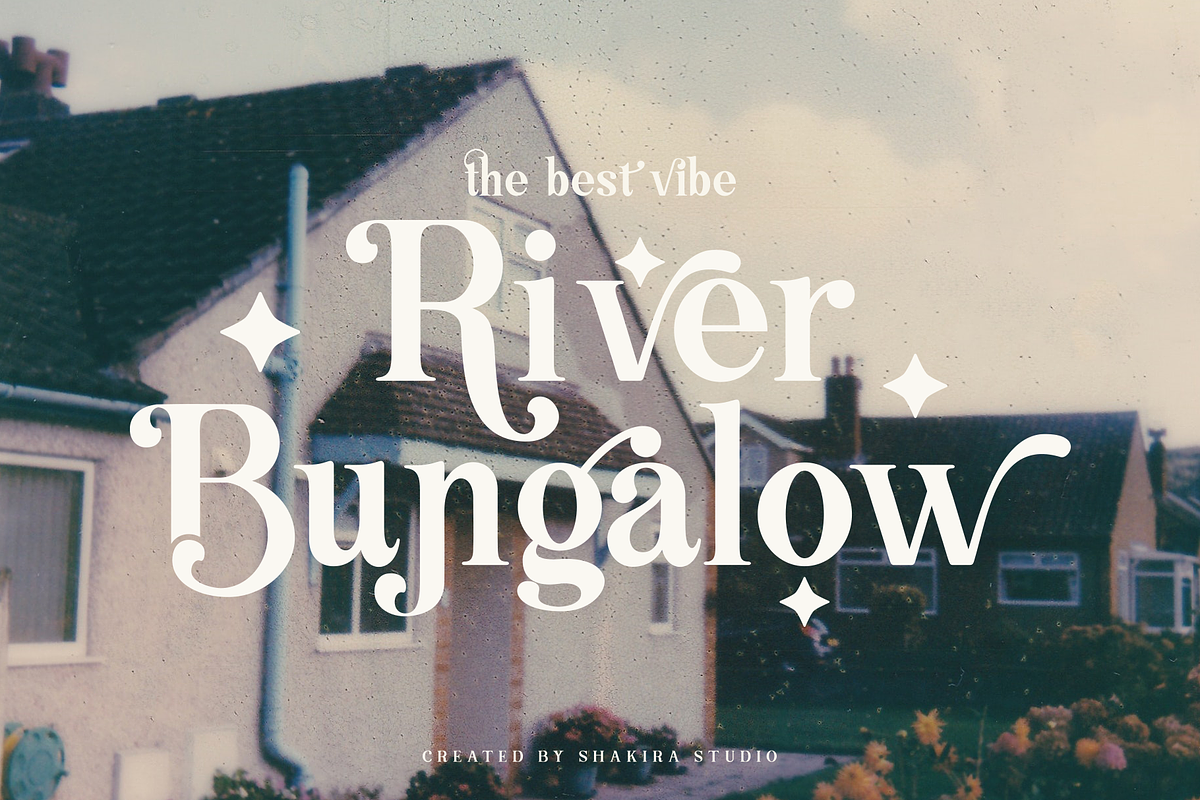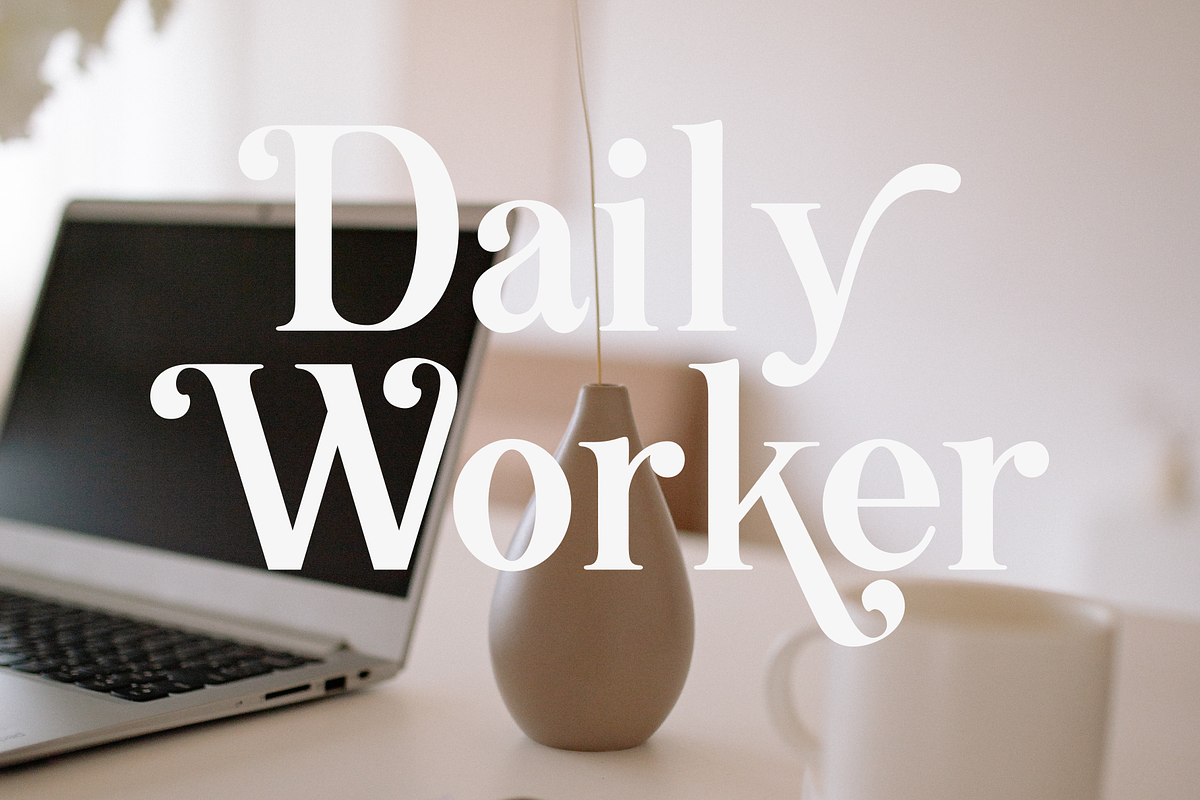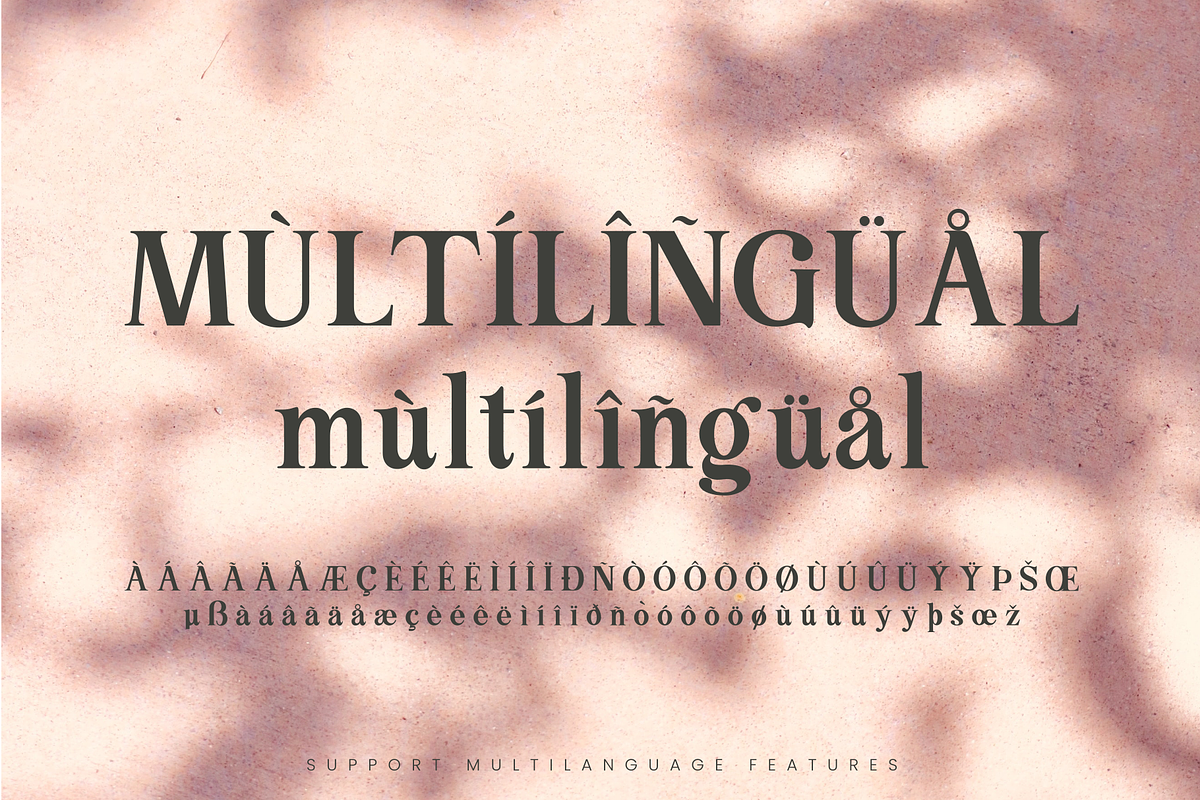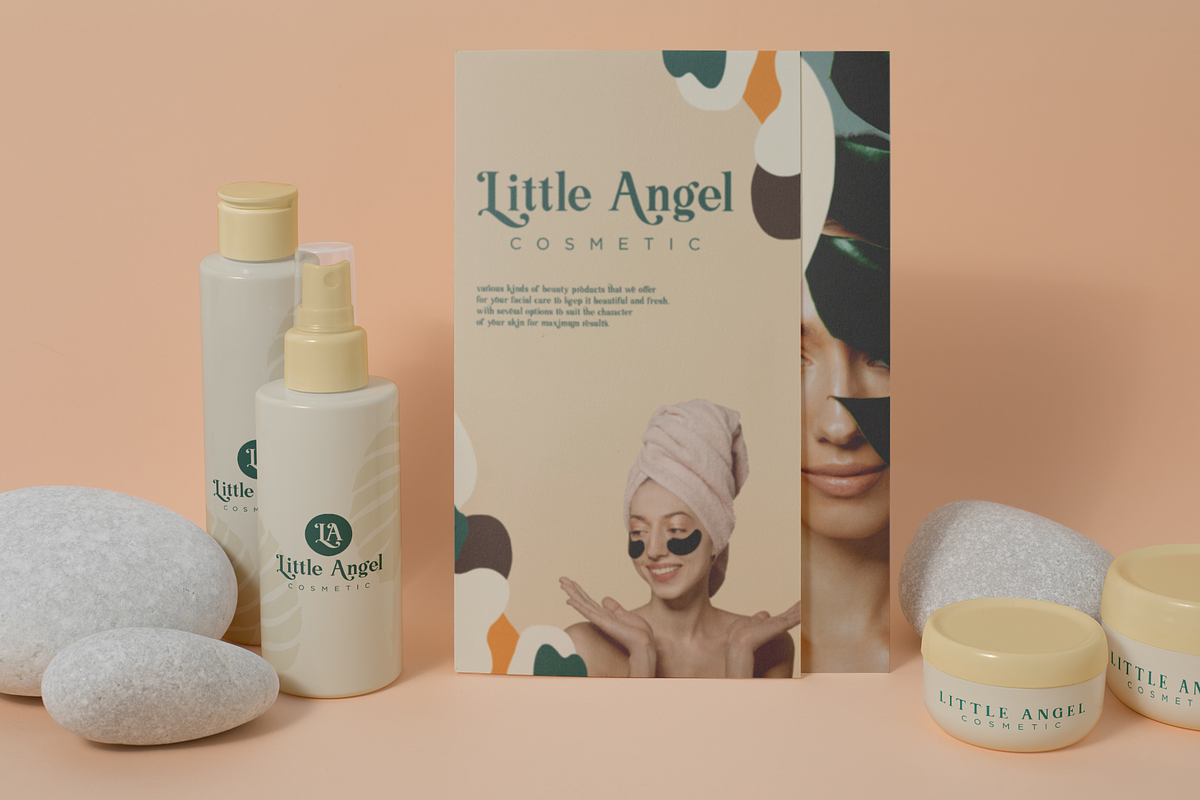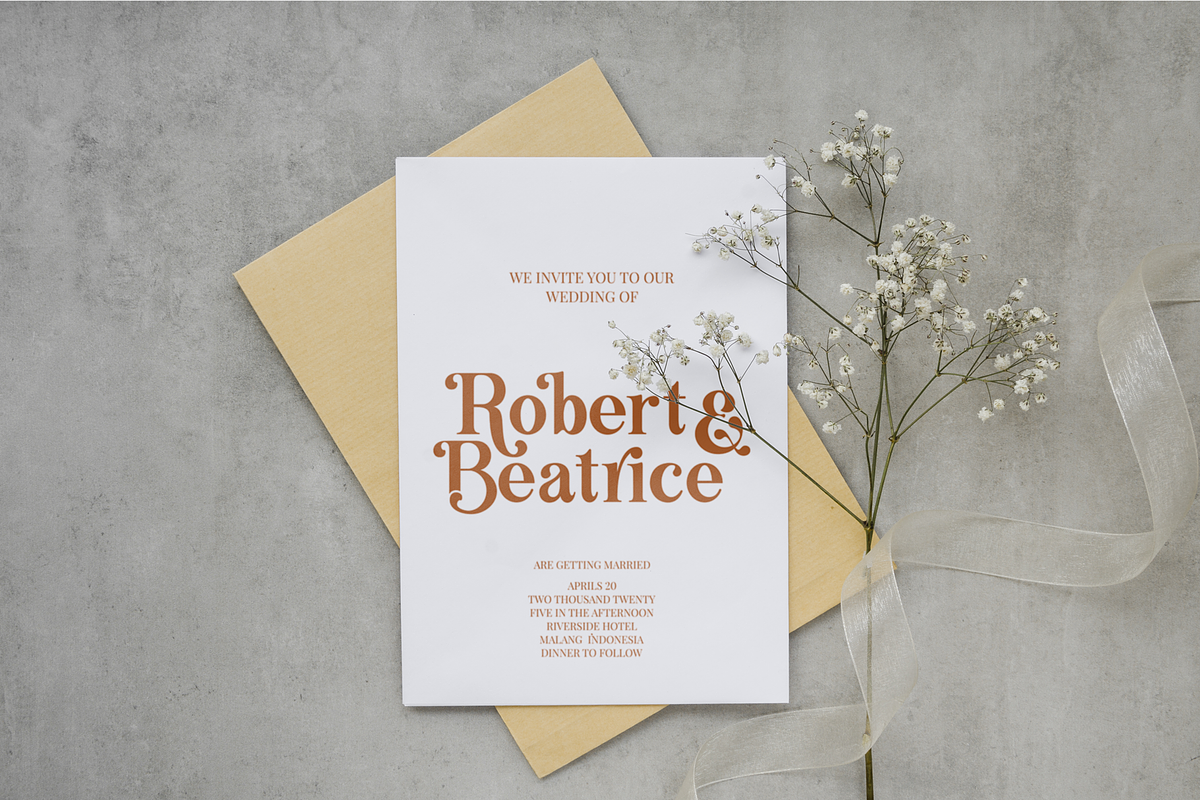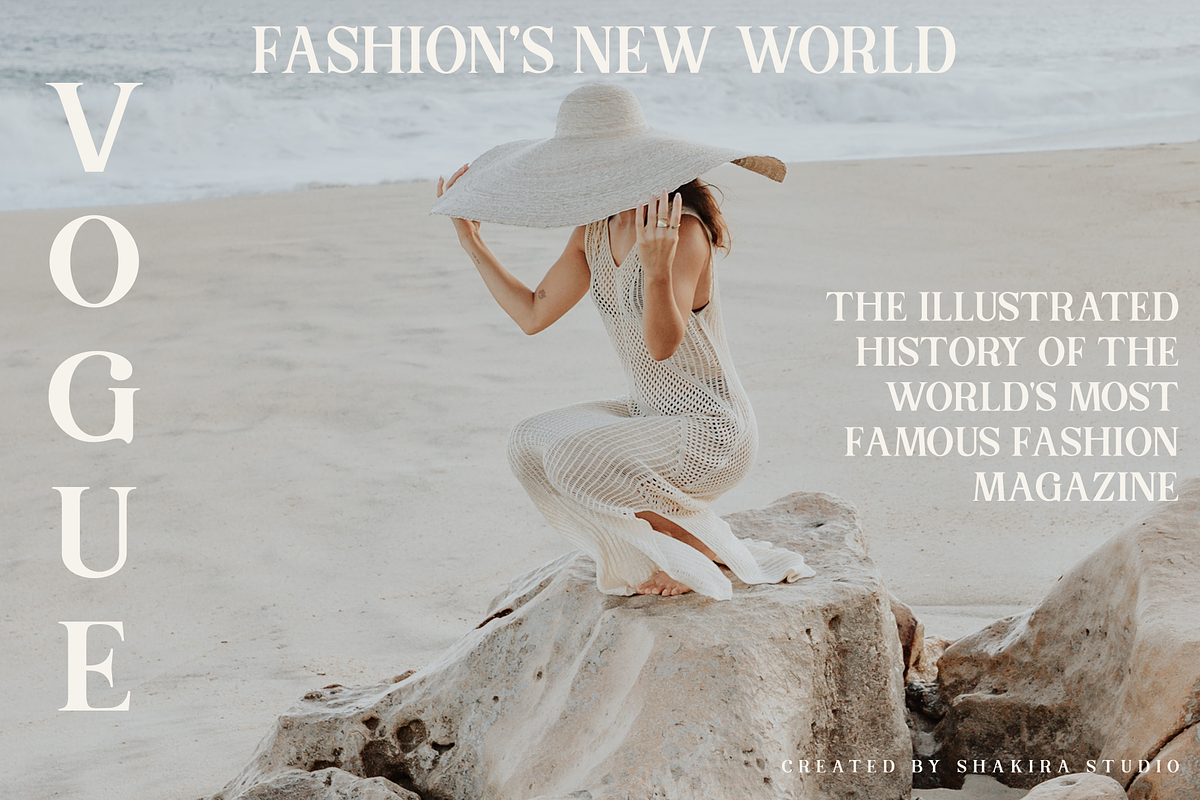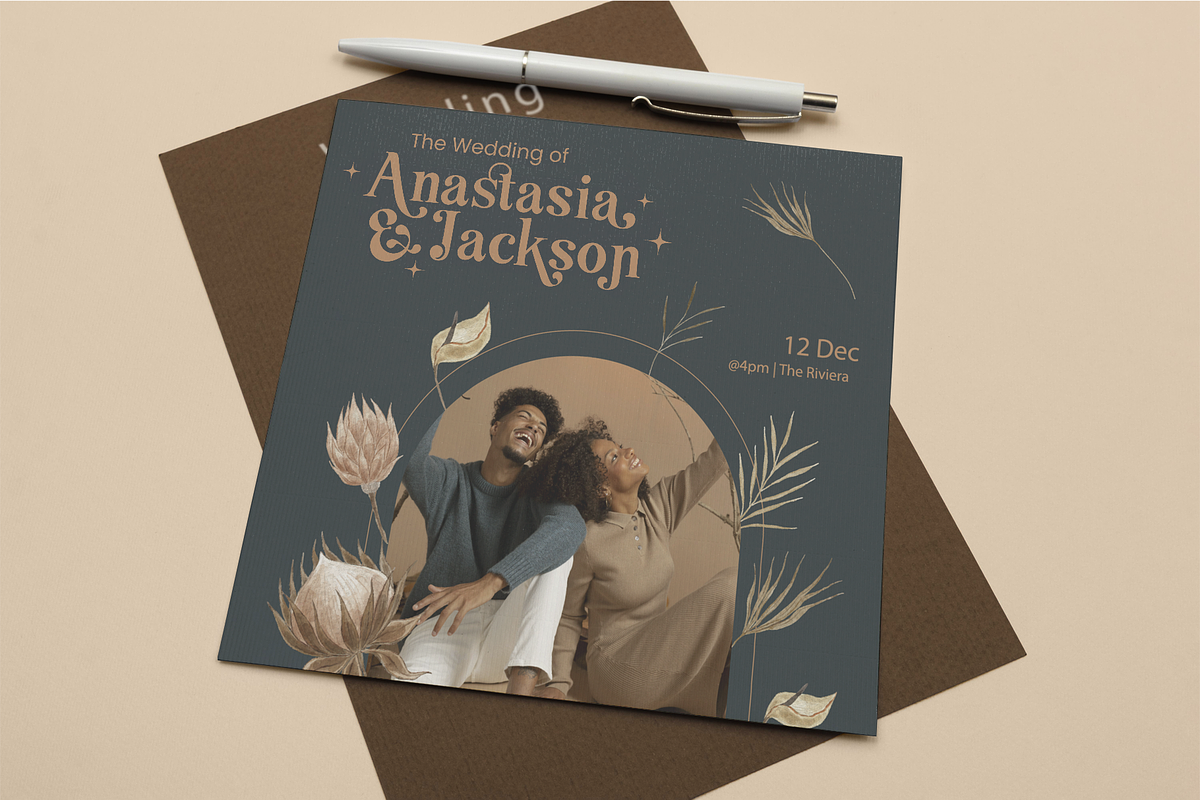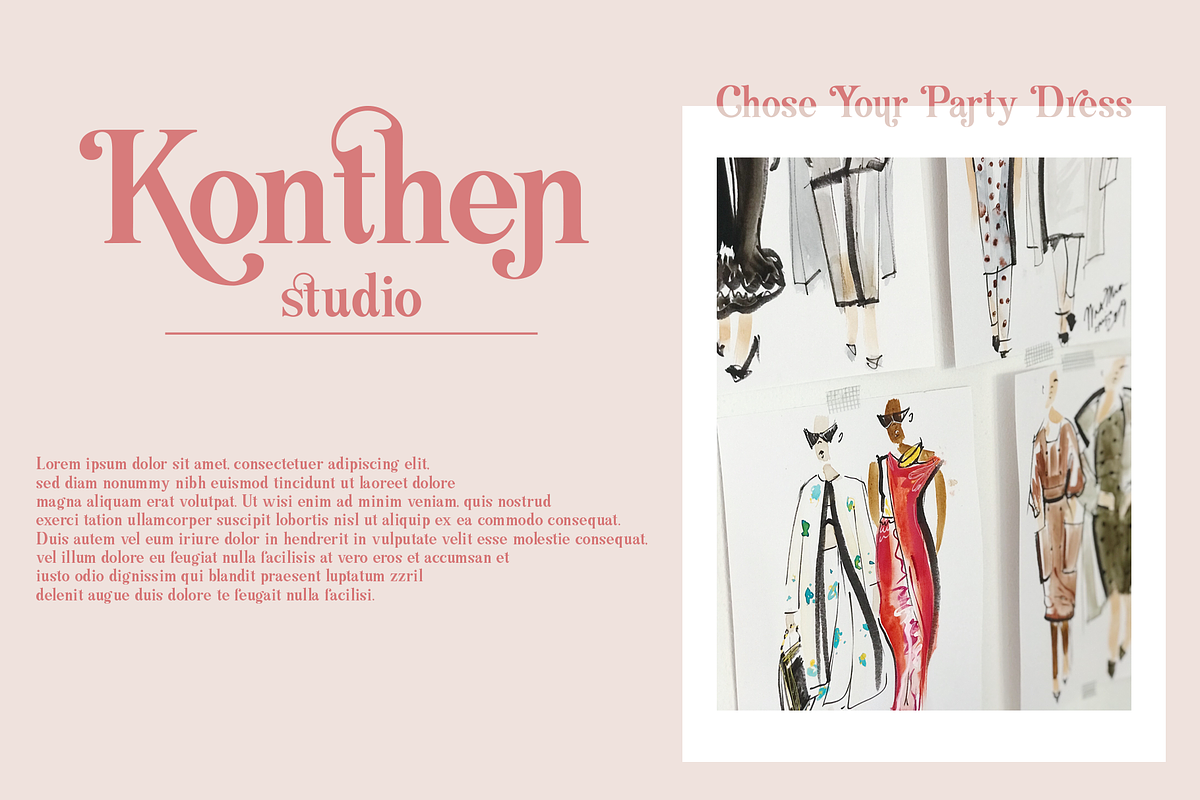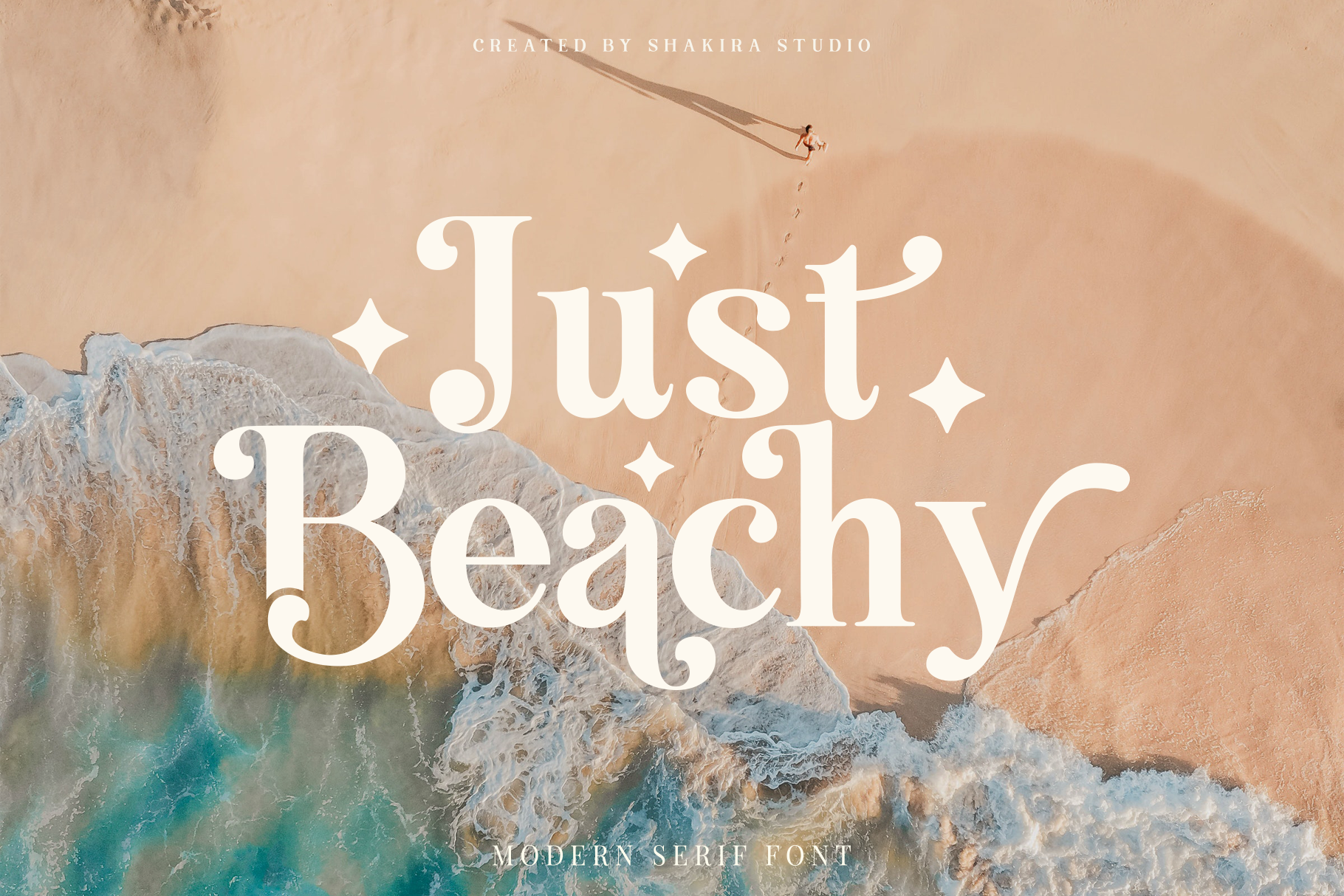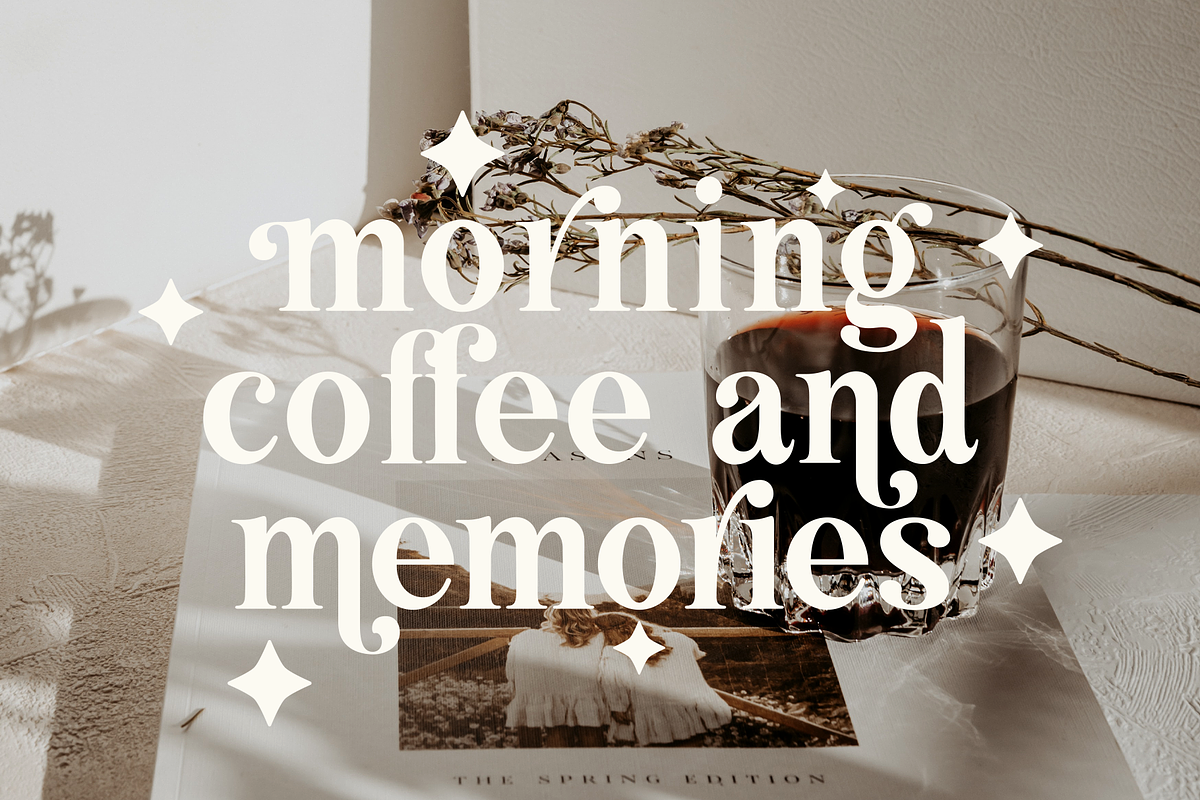
Just Beachy - Serif Font
Say hello to new serif font, Just Beachy!
Just Beachy is a Modern serif font. Create bold, gorgeous headlines and elegant designs with a vintage flair. George's contrasting lines and curved terminals give a sleek, elegant look to logos, holiday cards, wedding invitations, quotes, advertisements, and more.
Just Beachy has full set of modern uppercase and lowercase letters, numerals, punctuation, also multilingual symbols. It included opentype features like ligature, alternate and many others.